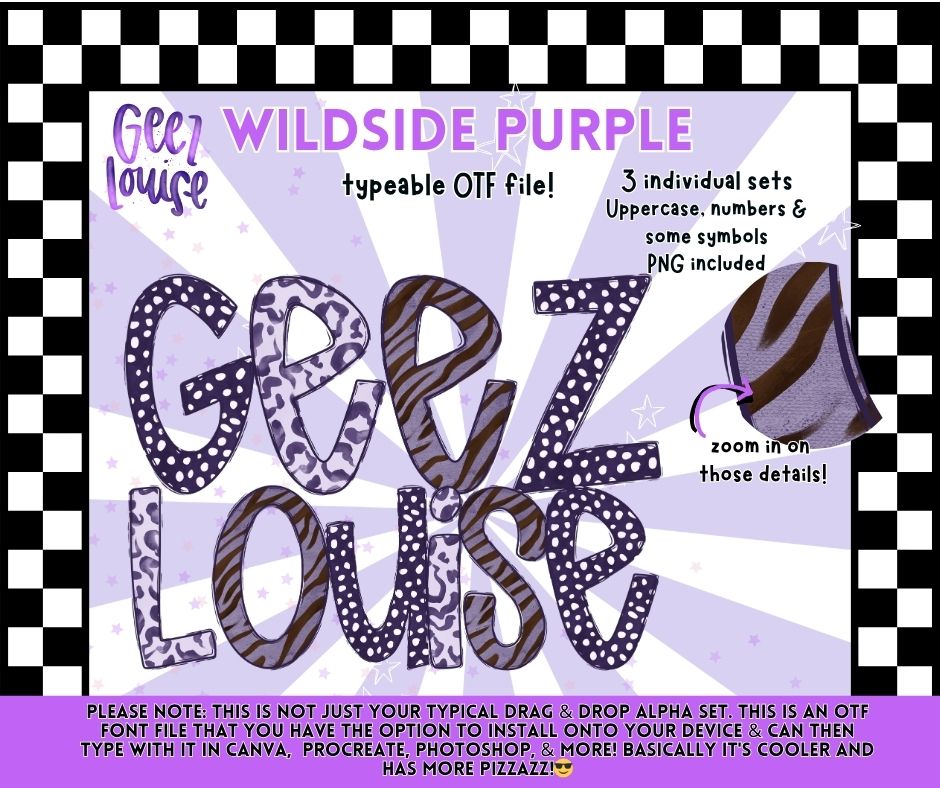
Wildside Purple OTF Font & PNG Alpha Bundle | Animal Print Retro Alphabet Set
Serving purple chaos with extra pizzazz. ⚡🐆💜
The Wildside Purple alpha set is packed with bold retro energy featuring hand-drawn animal prints, funky textures, and layered pattern goodness. This is not your average drag-and-drop alpha. This includes a typeable OTF font file so you can install it directly onto your device and type with it in programs like Canva, Procreate, Photoshop, and more.
Includes matching extras to build complete retro designs with lightning bolts, stars, smileys, flames, hearts, and decorative accents.
🎨 Design Features:
• Purple Animal Prints
• Retro Pattern Mixing
• Hand-Drawn Style
• Funky Y2K / Punk Inspired Vibes
• Bold Layered Texture Details